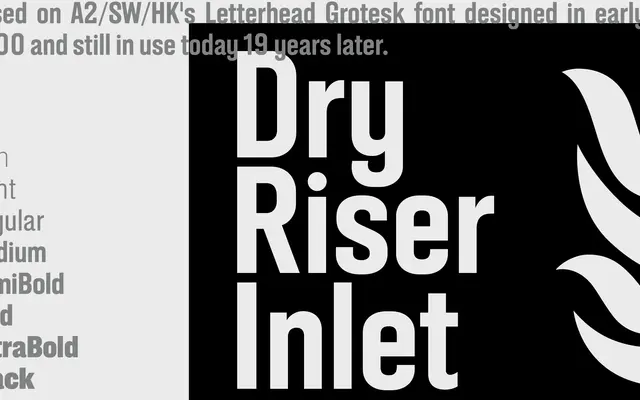
A2 Gothic
A2-Type · 2000
A clean grotesque sans originating from A2-Type's own letterhead in the early 2000s, now a full family spanning eight weights and two condensed widths.
Grown from an in-house letterhead face, the family covers eight weights from Thin to Black across the standard, Condensed and X Condensed widths. CNN has used a customised cut of the system for its online presence. The range suits editorial and identity work where a workhorse grotesque without strong quirks is needed.
Described explicitly as a Grotesk, originating from a letterhead design in the early 2000s. The proportions, weight range and naming convention place it firmly in the grotesque sans-serif tradition.